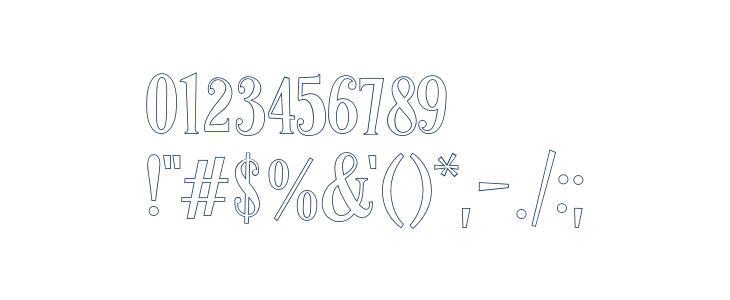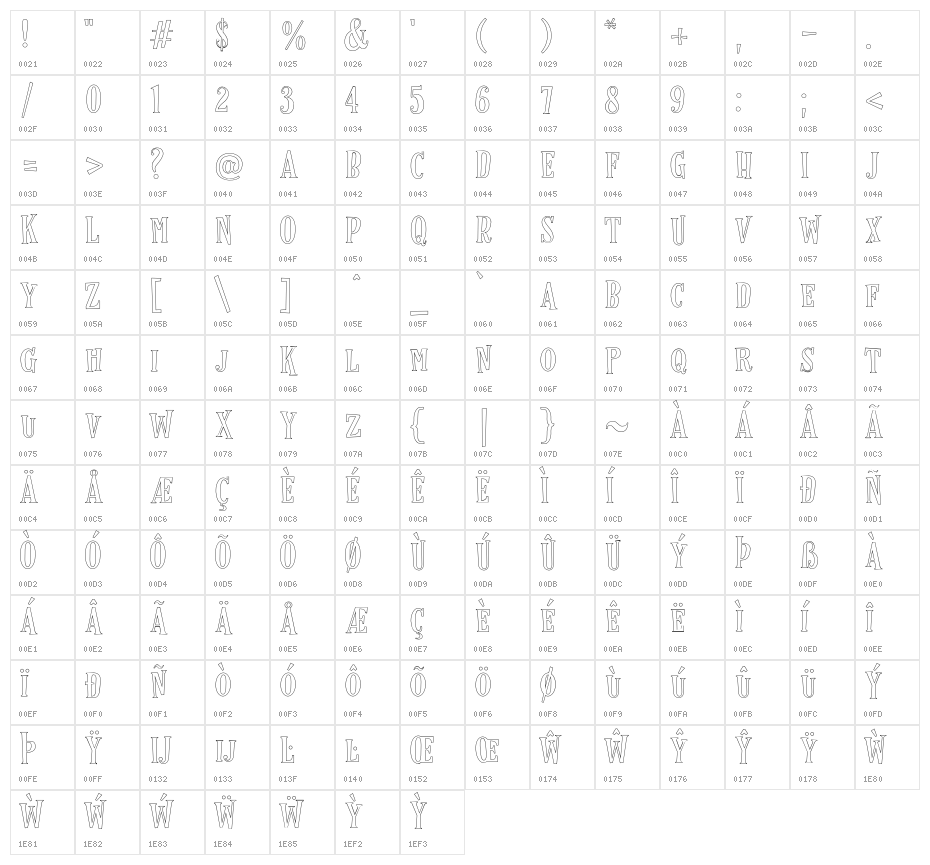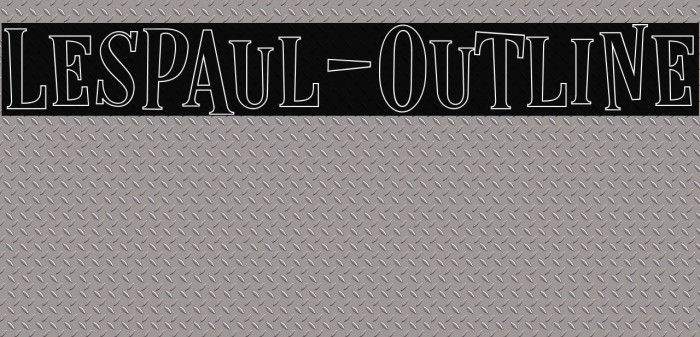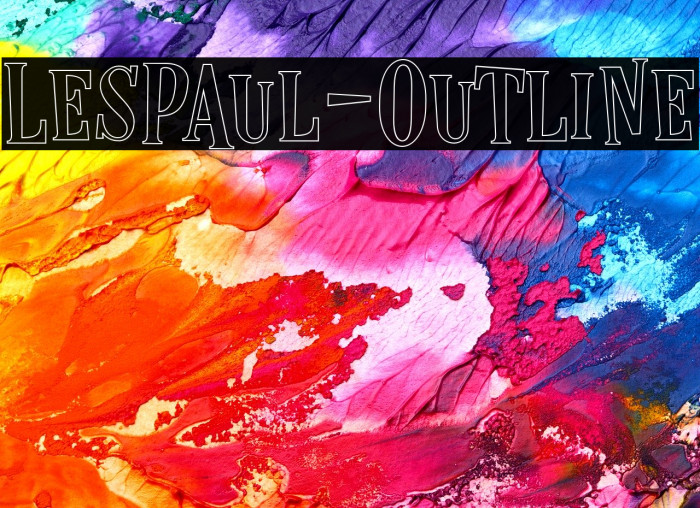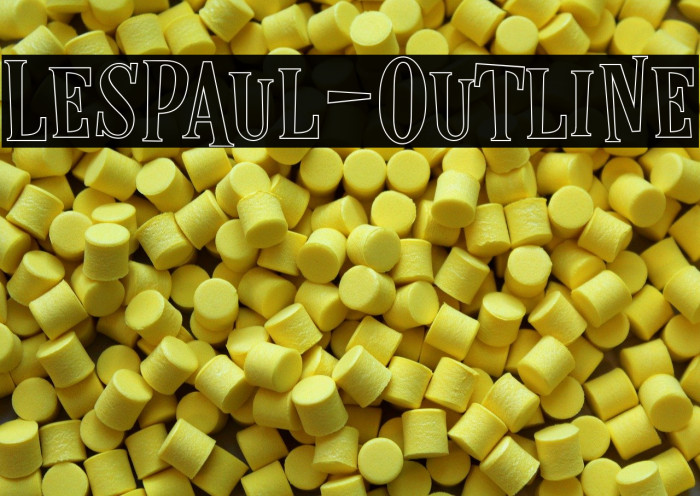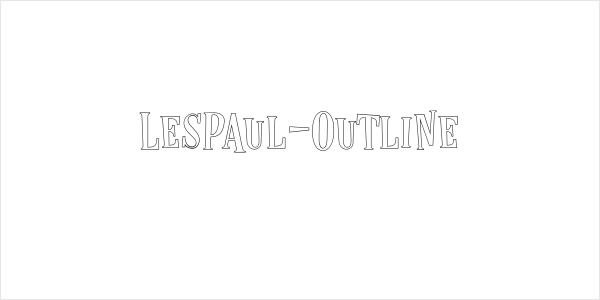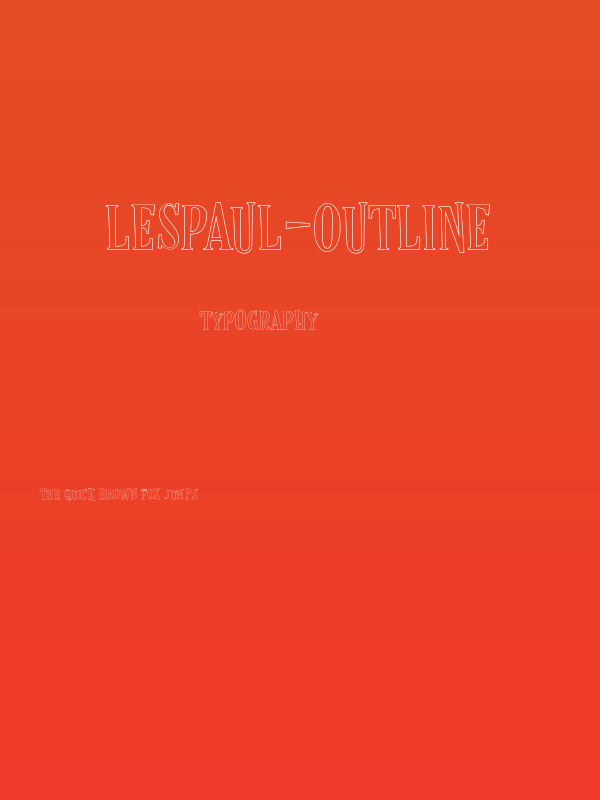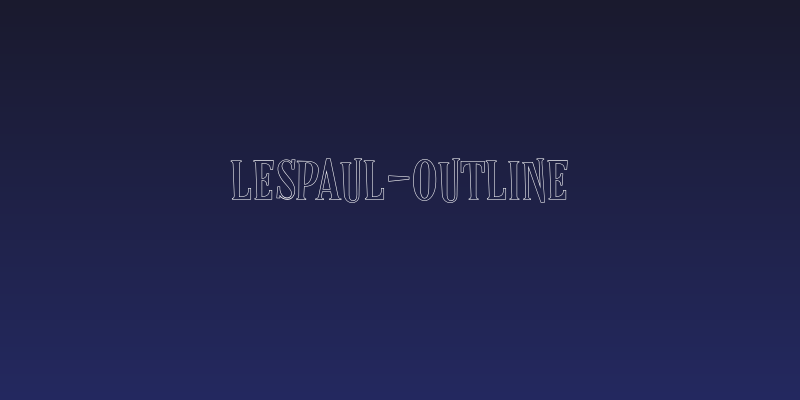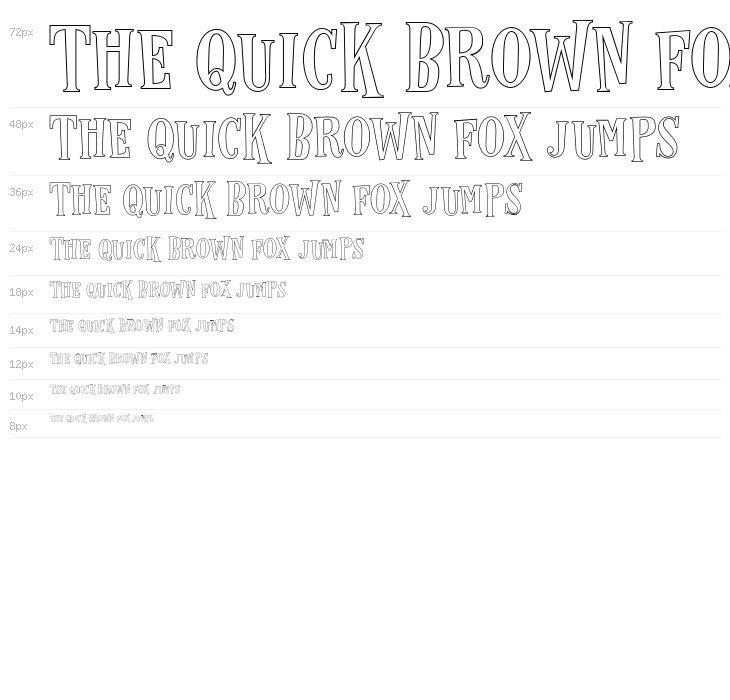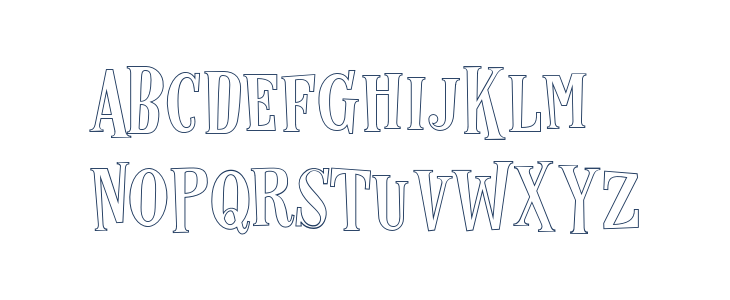
LesPaul-Outline Font
LesPaul-Outline Description
This font features a distinctive outline style that gives it a bold and striking appearance. Each character is defined by a clear, consistent outline that maintains uniformity across both uppercase and lowercase letters. The design is playful yet structured, with a slight vintage flair that adds character to the text. The numerals and special characters are crafted with the same attention to detail, ensuring a cohesive look throughout. This font's unique outline design makes it stand out, offering a creative twist on traditional serif fonts.
| Proposed Projects | Ideal for posters, logos, and headlines where a bold, eye-catching font is needed. |